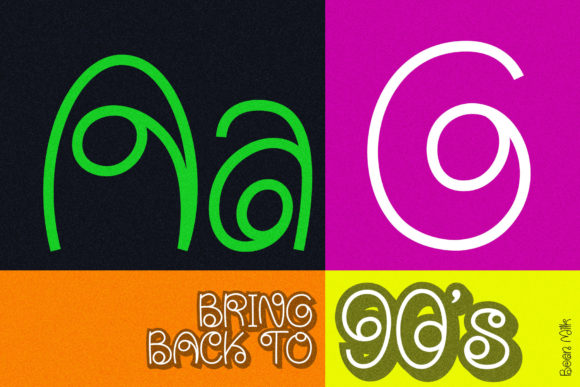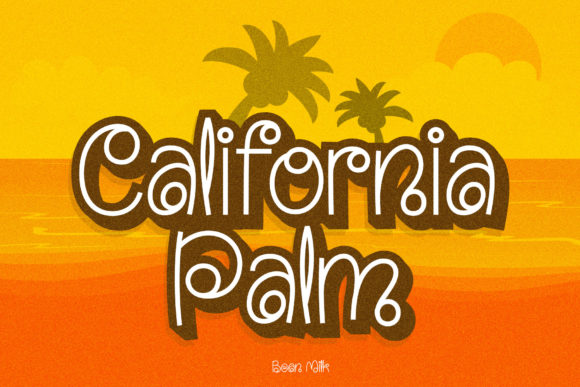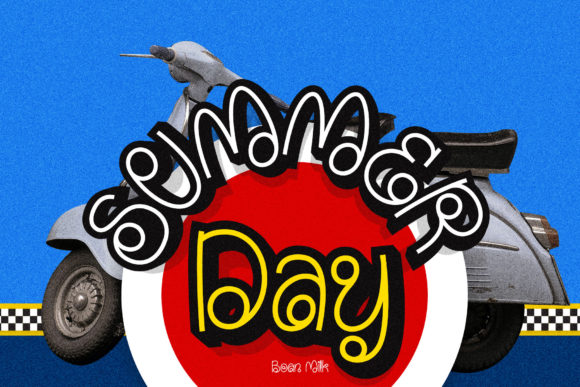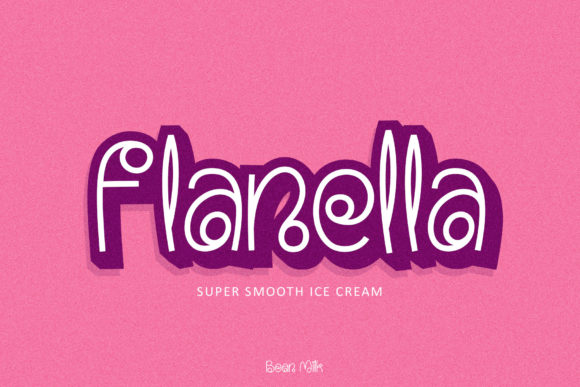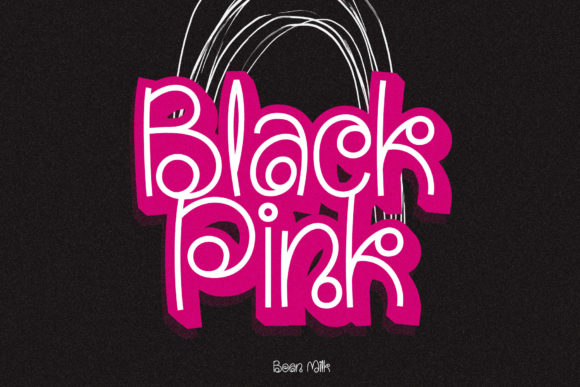
Get Ready to Fall in Love with the Perfect Pairing
Do you ever find yourself sitting at your desk, staring at a blank screen, trying to conjure up the perfect design? It’s a feeling we’ve all been there, and it’s where the magic happens. For designers, the search for the perfect font can be a never-ending quest, but what if we told you that your search is over? Enter the charming Bean Milk Font, a playful swirl script that’s about to revolutionize your design game.
Bean Milk Font is more than just a font – it’s a statement piece that adds a touch of elegance and whimsy to any project. With its stylish, fun, and humanist design, it’s the perfect addition to any design portfolio. Whether you’re a seasoned pro or just starting out, Bean Milk Font is a valuable asset that will bring a good harmony to your work and make your designs stand out from the crowd.
Bean Milk Font Key Features
- Font Family: Bean Milk Font is a sans-serif font family designed for digital use, offering a unique blend of modern and playful characteristics.
- Font Size: Bean Milk Font is available in multiple weights, ranging from Thin to Extra Bold, allowing for versatility in design applications.
- Resolution: Optimized for high-resolution displays, ensuring crisp and clear text rendering on modern devices.
- Unique Characteristics: The font features a distinctive, rounded design with subtle nuances that evoke a sense of friendliness and approachability, making it ideal for branding and digital applications.
Bean Milk Font Review
Bean Milk Font is a visually appealing font that has some really great features. ✨ I love the unique and quirky vibe it gives to any design project. The font is perfect for creating eye-catching headlines, titles, or even logos. The character set is also quite extensive, making it suitable for a wide range of applications.
One of the standout features of Bean Milk Font is its versatility. It comes in multiple weights and styles, allowing designers to mix and match to create the perfect look. This makes it easy to use in various design scenarios, from modern web designs to print materials.
- ⚠️ Limited legibility in small font sizes, making it less suitable for body text or text-heavy designs.
- ⚠️ May not be the best choice for designs that require a more formal or professional tone, as it can come across as playful or whimsical.
- ⚠️ The font may not be as effective in low-contrast designs or when paired with other fonts that have a similar style.
Overall, I think Bean Milk Font is a great addition to any designer’s toolkit. While it may have some limitations, its unique style and versatility make it a great choice for designers looking to add some personality to their projects.
The Bean Milk Font is a modern, sans-serif font that is perfect for digital designs, logos, and branding materials. Some common use cases include:
- Business cards
- Social media graphics
- Website headers
Alternatives to Bean Milk Font
Great Vibes Font is a modern, elegant script font that is perfect for creating a unique and stylish look. It’s ideal for use in titles, headings, and logos where a touch of sophistication is required. Compared to Bean Milk Font, Great Vibes Font has a more refined and polished feel, making it suitable for high-end designs.
Pacifico Font is a beautiful, handwritten font that exudes a sense of relaxation and calmness. It’s perfect for use in designs where a soft, gentle feel is desired, such as in advertising, packaging, and editorial content. Compared to Bean Milk Font, Pacifico Font has a more laid-back and casual tone, making it ideal for designs that require a warm and inviting atmosphere.